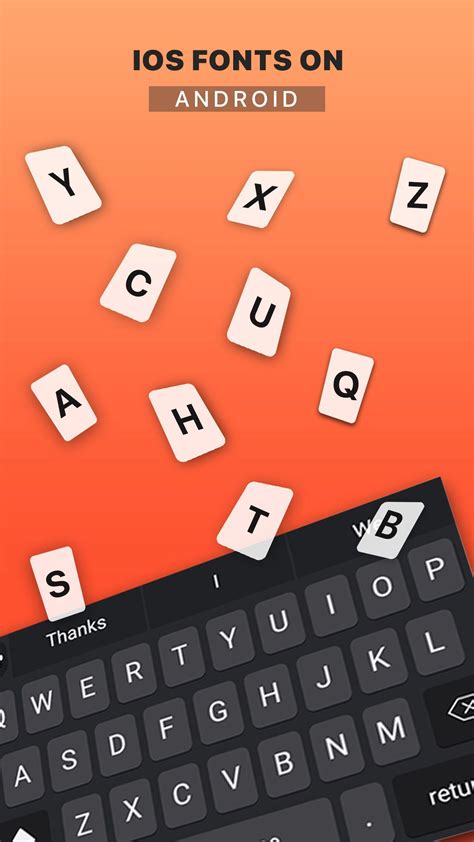
IOS Bold Font On Android: A Simple Guide
iOS Bold Font on Android: A Simple Guide
Hey guys! Ever wondered how to get that sleek, bold iOS font on your Android device? You’re not alone! Many Android users admire the clean and modern look of iOS fonts and want to replicate it on their own devices. This guide will walk you through everything you need to know to achieve this, from downloading the right font files to installing and applying them across your Android system. So, let’s dive in and get your Android looking sharp!
Why Use an iOS Bold Font on Android?
iOS bold fonts offer a distinct aesthetic that many users find appealing. The appeal lies in their clarity, modern design, and readability. These fonts often provide a more polished and professional appearance compared to some default Android fonts. For those who appreciate the visual style of iOS, using an iOS-style font on their Android device is a way to personalize their experience and bring a touch of Apple’s design language to their own devices. This customization can extend to various parts of the user interface, including system-wide text, specific apps, or even custom widgets.
Furthermore, readability is a significant factor. The clear and well-defined characters of iOS fonts, especially the bold variants, can enhance the ease with which users read text on their screens. This is particularly beneficial for individuals who spend a lot of time reading articles, emails, or documents on their Android devices. The improved legibility can reduce eye strain and make the overall reading experience more comfortable. The draw to use an iOS bold font often comes down to personal preference. Some users simply prefer the way these fonts look, finding them more visually appealing than the standard Android offerings. By changing the font, users can create a unique look and feel for their device, setting it apart from the default Android experience. This level of customization allows individuals to express their personal style and make their devices truly their own. In addition to the aesthetic and readability benefits, using an iOS bold font can also contribute to a sense of familiarity for users who switch between iOS and Android devices frequently. Maintaining a consistent font style across platforms can make the transition smoother and reduce cognitive dissonance. This is particularly useful for individuals who use both types of devices for work or personal use. Ultimately, the decision to use an iOS-style font on Android is a personal one, driven by a desire for improved aesthetics, readability, and customization options.
Finding the Right iOS Font for Your Android
When it comes to finding the right iOS font for your Android device, you’ve got a couple of great options to choose from. The most popular and widely used is San Francisco , which is the system font for iOS. This font is known for its clean, modern design and excellent readability, making it a favorite among iOS users. It comes in various weights, including a bold version, which is perfect for headings and emphasizing text.
Another excellent choice is Helvetica Neue , which was used in earlier versions of iOS. Helvetica Neue is another sans-serif font that is highly regarded for its clarity and simplicity. While it’s not the current default font on iOS, it still has a timeless appeal and can give your Android device a sophisticated look. When searching for these fonts, be sure to look for reputable sources to avoid downloading potentially harmful files. Websites like Google Fonts and dafont.com are good places to start. However, keep in mind that these sites may not offer the exact iOS fonts due to licensing restrictions. In that case, you may need to search for alternatives that closely resemble the iOS fonts. Once you’ve found a font you like, download the .ttf file, which is the standard font file format. Make sure the file is from a trusted source to protect your device from malware. Before installing the font, it’s a good idea to preview it to make sure it looks the way you expect. You can do this by simply opening the .ttf file on your computer or using a font preview app on your Android device. This will give you a chance to see how the font looks in different sizes and styles, ensuring that it’s the right fit for your needs. Also, consider the font’s compatibility with different apps and system elements on your Android device. Some fonts may not render correctly in certain apps or may cause display issues. It’s always a good idea to test the font in a few different apps to make sure it works well across the board. By taking the time to find the right iOS font and ensuring its compatibility with your device, you can create a customized and visually appealing experience on your Android.
• Font Apps : There are also font apps available on the Google Play Store that offer a variety of fonts, including those inspired by iOS. Apps like HiFont or iFont can be convenient, but always read the reviews and check the app permissions before installing. You want to make sure they’re not asking for unnecessary access to your device.
Once you’ve found a source, make sure the font file is in .ttf format. This is the standard font file format that Android uses. Before you hit that download button, double-check the website’s reputation. Look for security badges, read user reviews, and make sure the site has a privacy policy. If anything feels off, trust your gut and find another source. When you download the font, it’ll probably end up in your device’s Downloads folder. Keep track of where it is, because you’ll need it for the next step. It’s also a good idea to scan the downloaded file with a virus scanner, just to be extra safe. Better to be cautious than sorry! Remember, finding the right font is only half the battle. Making sure you download it from a safe and reliable source is just as important. So, take your time, do your research, and happy downloading!
Installing the iOS Bold Font on Your Android
Alright, you’ve got your iOS bold font downloaded and ready to go. Now comes the fun part: installing it on your Android device! Unfortunately, Android doesn’t have a built-in system-wide font changer like some other operating systems. But don’t worry, there are still a few ways to get that sleek iOS look .
Method 1: Using a Custom Launcher
One of the easiest ways to change the font on your Android device is to use a custom launcher. Launchers like Nova Launcher , Apex Launcher , and Action Launcher offer a ton of customization options, including the ability to change the system font. Here’s how to do it:
1. Download and Install a Custom Launcher: Head to the Google Play Store and download your favorite custom launcher. I personally recommend Nova Launcher because it’s lightweight, customizable, and has a free version.
2. Set the Custom Launcher as Default: Once the launcher is installed, you’ll be prompted to set it as your default launcher. This means that it will replace your phone’s stock home screen.
3. Access Launcher Settings: Open the launcher’s settings menu. The exact location of the font settings may vary depending on the launcher you’re using, but it’s usually found under “Look & Feel,” “Appearance,” or “Customization.”
4. Change the Font: Look for an option to change the font. Some launchers allow you to select a font file directly from your device’s storage, while others have a built-in font selection tool. If you can select a font file, navigate to the Downloads folder where you saved the iOS bold font and choose the .ttf file.
5. Apply the Changes: Once you’ve selected the font, apply the changes. You may need to restart the launcher or your device for the changes to take effect.
Method 2: Using a Font Changer App
Another option is to use a font changer app. There are several apps available on the Google Play Store that allow you to change the system font on your Android device. However, keep in mind that some of these apps may require root access, which is a more advanced process that gives you greater control over your device. Here’s how to use a font changer app:
1. Download and Install a Font Changer App: Search for a font changer app on the Google Play Store . Some popular options include HiFont and iFont . Read the reviews and check the app permissions before installing to make sure it’s safe and trustworthy.
2. Grant Permissions (if required): Some font changer apps may require root access to change the system font. If the app asks for root access, proceed with caution and only grant it if you’re comfortable with the risks involved.
3. Select the iOS Bold Font: Open the app and browse the available fonts. Some apps may have a search function that allows you to find the iOS bold font more easily. If the app doesn’t have the exact font, look for a similar-looking font that you like.
4. Apply the Changes: Once you’ve selected the font, apply the changes. The app may ask you to restart your device for the changes to take effect.
Method 3: Using Custom ROMs
If you’re feeling adventurous, you can also install a custom ROM on your Android device. Custom ROMs are modified versions of the Android operating system that often come with additional features and customization options, including the ability to change the system font. However, installing a custom ROM is a more advanced process that requires unlocking your device’s bootloader and flashing the ROM using a custom recovery. This can be risky and may void your warranty, so proceed with caution and only do it if you’re comfortable with the technical aspects involved. No matter which method you choose, remember to back up your device before making any changes. This will ensure that you can restore your device to its previous state if anything goes wrong. With a little patience and effort, you can get that sleek iOS bold font on your Android and give your device a fresh new look!
Applying the Font Across Your System
So, you’ve installed your iOS bold font , but now you want to make sure it’s everywhere , right? Applying the font across your system can be a bit tricky, as Android doesn’t always make it straightforward. But don’t worry, I’ve got some tips to help you get that consistent look.
System-Wide Font Changes
As mentioned earlier, the easiest way to achieve system-wide font changes is by using a custom launcher or a font changer app. These methods typically apply the font to most system elements, including the home screen, app drawer, settings menu, and some pre-installed apps. However, keep in mind that some apps may have their own font settings that override the system font. In this case, you’ll need to change the font settings within the app itself.
Individual App Settings
Many apps, especially those that display a lot of text, have their own font settings that allow you to customize the font used within the app. This is common in apps like:
• E-readers : Apps like Kindle , Google Play Books , and Kobo typically allow you to choose from a variety of fonts, including custom fonts that you’ve installed on your device.
• Note-taking apps : Apps like Evernote , OneNote , and Google Keep often have font settings that allow you to change the font used for notes and documents.
• Word processors : Apps like Microsoft Word and Google Docs allow you to change the font for documents created within the app.
• Social media apps : While less common, some social media apps like Twitter and Facebook may have font settings that allow you to adjust the font size or style.
To change the font in these apps, simply open the app’s settings menu and look for a font option. If the app allows you to select a custom font, navigate to the Downloads folder where you saved the iOS bold font and choose the .ttf file.
Keyboard Fonts
Another area where you might want to apply the iOS bold font is your keyboard. Some custom keyboards, like Gboard and SwiftKey , allow you to customize the font used for the keyboard keys. To change the keyboard font, open the keyboard’s settings menu and look for a font option. If the keyboard allows you to select a custom font, navigate to the Downloads folder where you saved the iOS bold font and choose the .ttf file.
Widgets
If you use widgets on your home screen, you may also want to customize the font used in the widgets. Some widget apps, like KWGT Kustom Widget Maker , allow you to create custom widgets with your own fonts and styles. To customize the font in a widget, open the widget’s settings menu and look for a font option. If the widget allows you to select a custom font, navigate to the Downloads folder where you saved the iOS bold font and choose the .ttf file.
By applying the iOS bold font across your system, individual apps, keyboard, and widgets, you can create a consistent and visually appealing look for your Android device. It may take a little effort to customize everything, but the end result is well worth it!
Troubleshooting Font Issues
Even with the best planning, sometimes things don’t go quite as expected. If you’re running into issues with your iOS bold font on Android, don’t panic! Here are a few common problems and how to fix them:
1. Font Not Showing Up:
• Problem: You’ve installed the font, but it’s not appearing in the list of available fonts in your launcher or app.
• Solution:
• Restart your device: This is the first thing you should try. A simple restart can often resolve minor glitches.
• Check font file: Make sure the font file is in .ttf format and is not corrupted. Try downloading the font again from a different source.
• Clear launcher/app cache: Go to your device’s settings, find the launcher or app you’re using, and clear its cache. This can sometimes resolve font-related issues.
2. Font Rendering Incorrectly:
• Problem: The font is displaying in a weird or distorted way.
• Solution:
• Check font compatibility: Some fonts may not be fully compatible with all Android devices or apps. Try a different iOS-style font to see if the issue persists.
• Adjust font size: Sometimes, the font may render incorrectly if the font size is too large or too small. Try adjusting the font size in your launcher or app settings.
• Update your device: Make sure your Android device is running the latest version of the operating system. Software updates often include bug fixes and improvements that can resolve font-related issues.
3. Font Causing System Instability:
• Problem: Your device is crashing or freezing after installing the font.
• Solution:
• Uninstall the font: If the font is causing system instability, the best thing to do is to uninstall it. This may require you to reset your launcher or app settings to their default values.
• Factory reset: If uninstalling the font doesn’t resolve the issue, you may need to perform a factory reset on your device. This will erase all data on your device, so be sure to back up your important files first.
4. Licensing Issues:
• Problem: You’re using a font that you don’t have the rights to use.
• Solution:
• Use a free font: There are many free iOS-style fonts available online. Stick to fonts that are licensed for commercial use to avoid any legal issues.
• Purchase a license: If you want to use a specific font that is not free, you may need to purchase a license from the font’s creator.
By troubleshooting these common font issues, you can ensure that your iOS bold font experience on Android is smooth and enjoyable. Remember to always download fonts from reputable sources and back up your device before making any changes.
So, there you have it! Getting that iOS bold font on your Android device is totally achievable with a few simple steps. Whether you choose to use a custom launcher, a font changer app, or even dive into the world of custom ROMs, the power to personalize your device’s look is in your hands. Just remember to download your fonts from safe sources, double-check compatibility, and don’t be afraid to experiment until you find the perfect fit. With a little bit of effort, you can transform your Android’s typography and enjoy that sleek, modern aesthetic you’ve been craving. Happy customizing, folks! You can enjoy your iOS bold font on your android device.